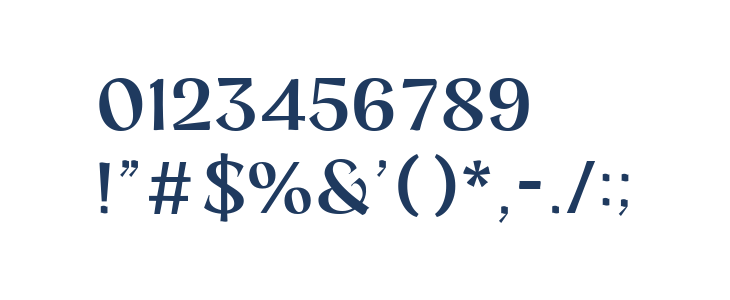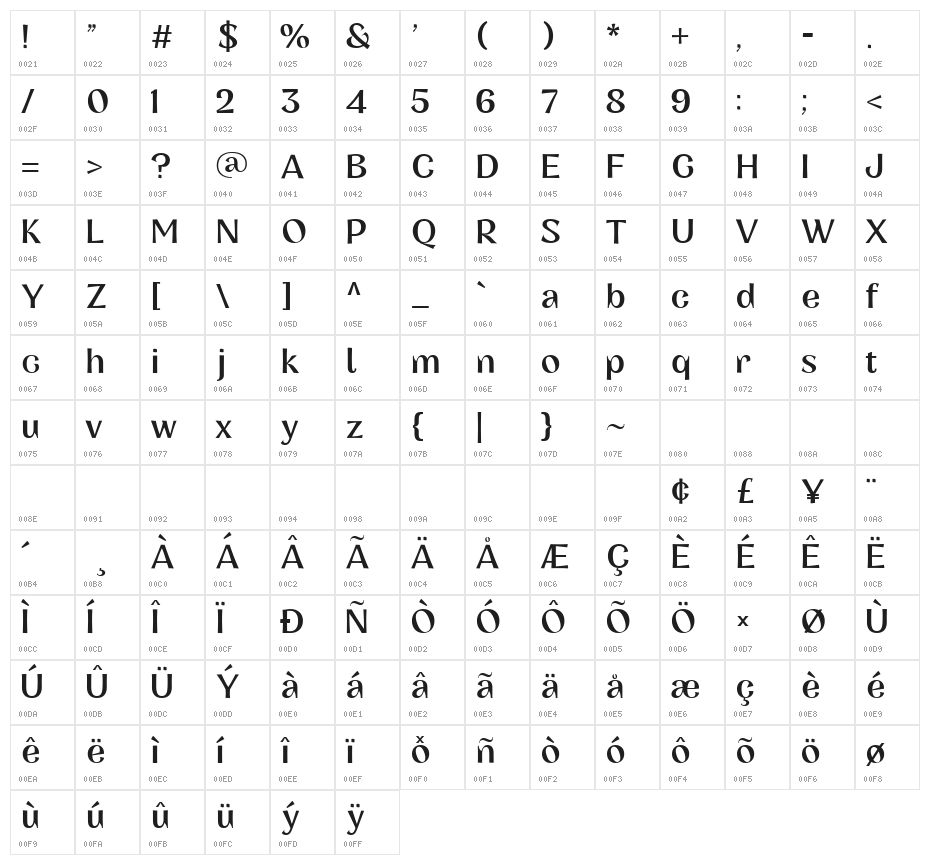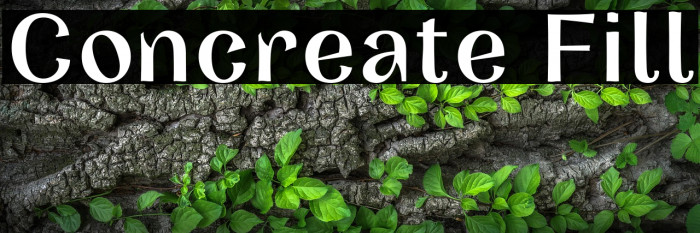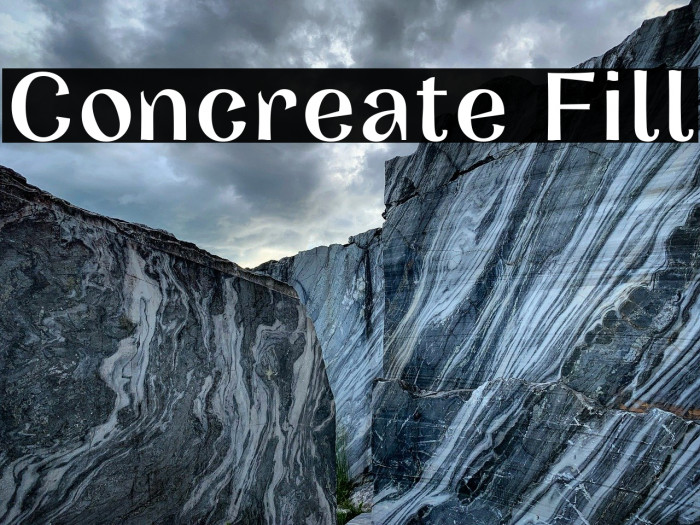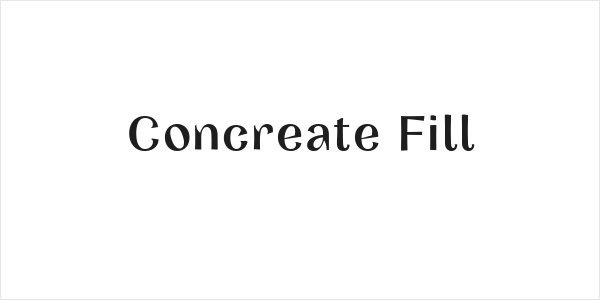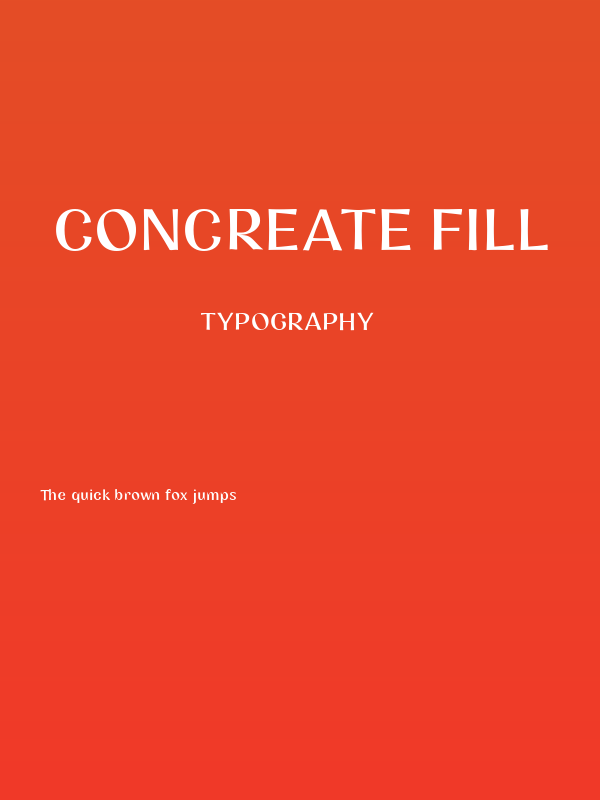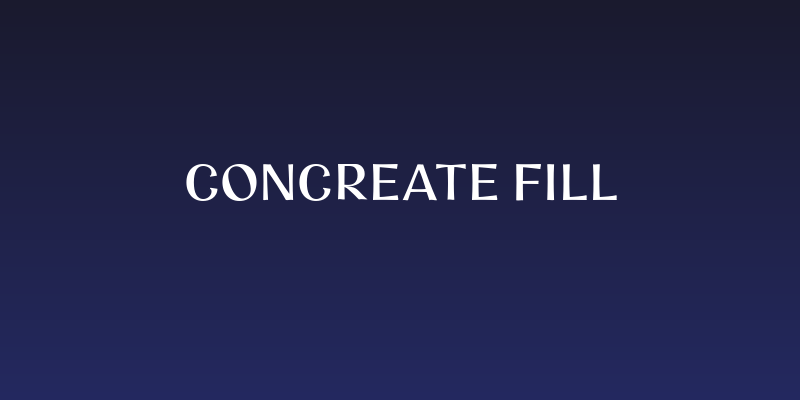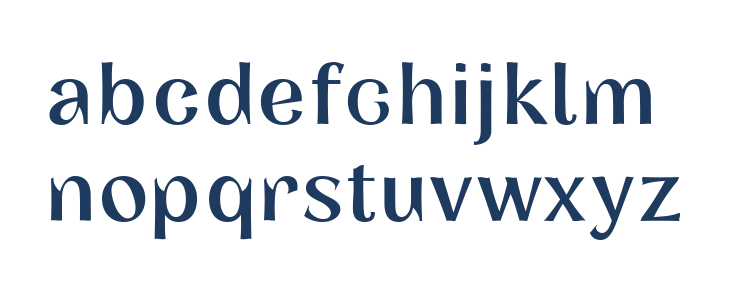
Concreate Fill Font
Concreate Fill Description
This font features a bold and dynamic style with a distinct flair in its letterforms. The uppercase letters are characterized by sharp, angular serifs and a slightly condensed appearance, giving them a strong presence. The lowercase letters maintain a consistent style, with rounded edges that contrast with the angular serifs of the uppercase. The numerals are bold and clear, making them highly legible. Special characters are designed to match the overall aesthetic, with a playful yet sophisticated touch. This font combines traditional serif elements with a modern twist, making it versatile for various design applications.
| Proposed Projects | Ideal for branding, editorial design, posters, and packaging where a strong, distinctive typeface is needed. |